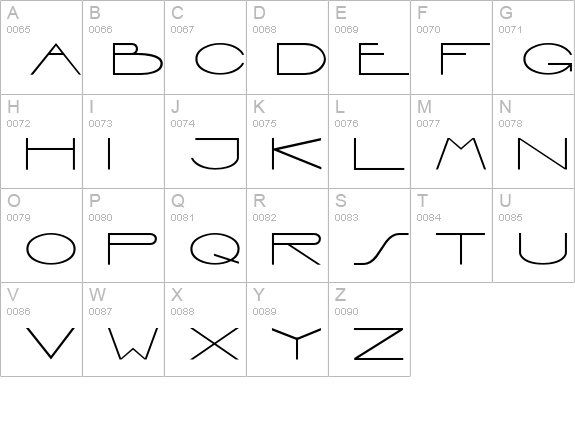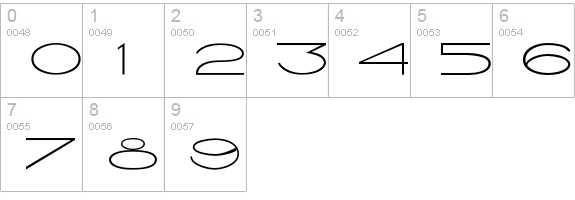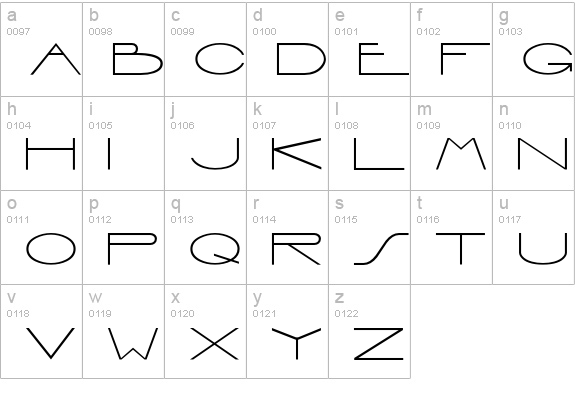
Interdimensional Font Details
Introducing the mesmerizing and groundbreaking Interdimensional font, a truly unique and captivating typeface that transcends the boundaries of traditional design. With its bold and futuristic appeal, this font will transport you to a whole new dimension of creativity. Featuring an innovative blend of geometric shapes and intricate lines, Interdimensional font is a testament to the limitless possibilities of typography. Each letter is carefully crafted to evoke a sense of otherworldly elegance, making it perfect for projects that demand attention and stand out from the crowd. Not only does Interdimensional font possess an undeniable visual allure, but it also offers incredible versatility. Whether you're designing a cutting-edge logo, creating eye-catching headlines, or crafting a visually stunning poster, this font will effortlessly adapt to any project, elevating it to new heights of sophistication and modernity. And the best part? Interdimensional font is absolutely free to download at FontsMarket.com. We believe that creativity should be accessible to all, and that's why we've made this extraordinary font available to you at no cost. So go ahead, unleash your imagination and explore the myriad possibilities that await you with Interdimensional font. Don't let your designs be confined to the ordinary. Break through the barriers of conventionality and embark on a journey into the unknown with Interdimensional font. Its captivating design, combined with its freely available download, will undoubtedly revolutionize your creative endeavors. Embrace the interdimensional realm of typography and let your designs transcend the boundaries of imagination.